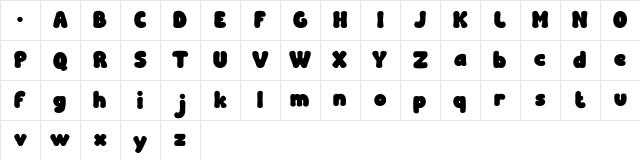
Tropical Vibes Regular
Designer: Flawless & Co.
Design Context for Tropical Vibes
Tropical Vibes is a composed and adaptable typeface that performs quietly and consistently across a wide range of design contexts.